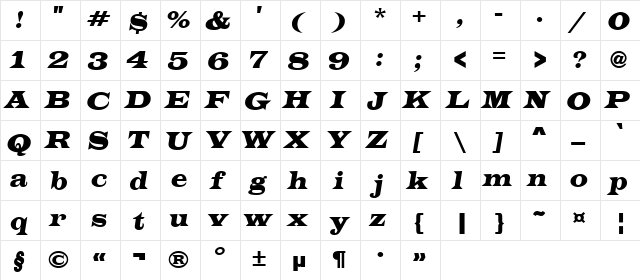
a_LatinoExp Italic
Design Context for a_LatinoExp Typeface
a_LatinoExp takes a measured approach to typography — its balanced proportions and neutral character make it a reliable workhorse for both digital and print work. Its italic angle brings a sense of urgency and motion to the letterforms.
Pro Tip: Try a_LatinoExp for annotation and caption copy alongside an upright companion — the contrast in angle creates a dynamic but ordered typographic system.